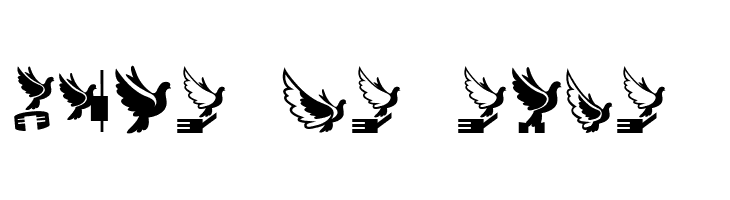
Flying Leatherneck Expanded Font
A bold, dynamic font with jagged edges and a strong, angular appearance.
Flying Leatherneck Extra-condensed Font
A bold, jagged, extra-condensed font with a dynamic and distressed style.
Flying Leatherneck Extra-expanded Font
A bold, dynamic font with a rugged, distressed style and strong presence.
Flying Leatherneck Leftalic Font
A bold, left-slanted font with jagged, dynamic characters.
Flying Leatherneck Light Font
A bold, distressed font with a rugged, vintage style.
Flying Leatherneck Outline Font
A bold, outlined font with a dynamic, comic-inspired style.
Flying Leatherneck Rotalic Font
A bold, angular font with a dynamic and energetic style.
Flying Leatherneck Rotate Font
A bold, jagged font with a dynamic and aggressive style.
Flying Leatherneck Straight Font
A bold, rugged font with jagged edges and dynamic style.
Flying Love Font
A playful, heart-themed decorative font with bold strokes.
Flying Peace PERSONAL USE Regular Font
A bold, decorative font filled with intricate bird patterns, perfect for artistic projects.
Flying Penguin Font
A whimsical font featuring letters and numbers within cartoon penguin illustrations.
Flying Saucer DEMO Regular Font
A playful, hand-drawn font with alien-themed motifs and rounded letterforms.
Flying Saucer Regular Font